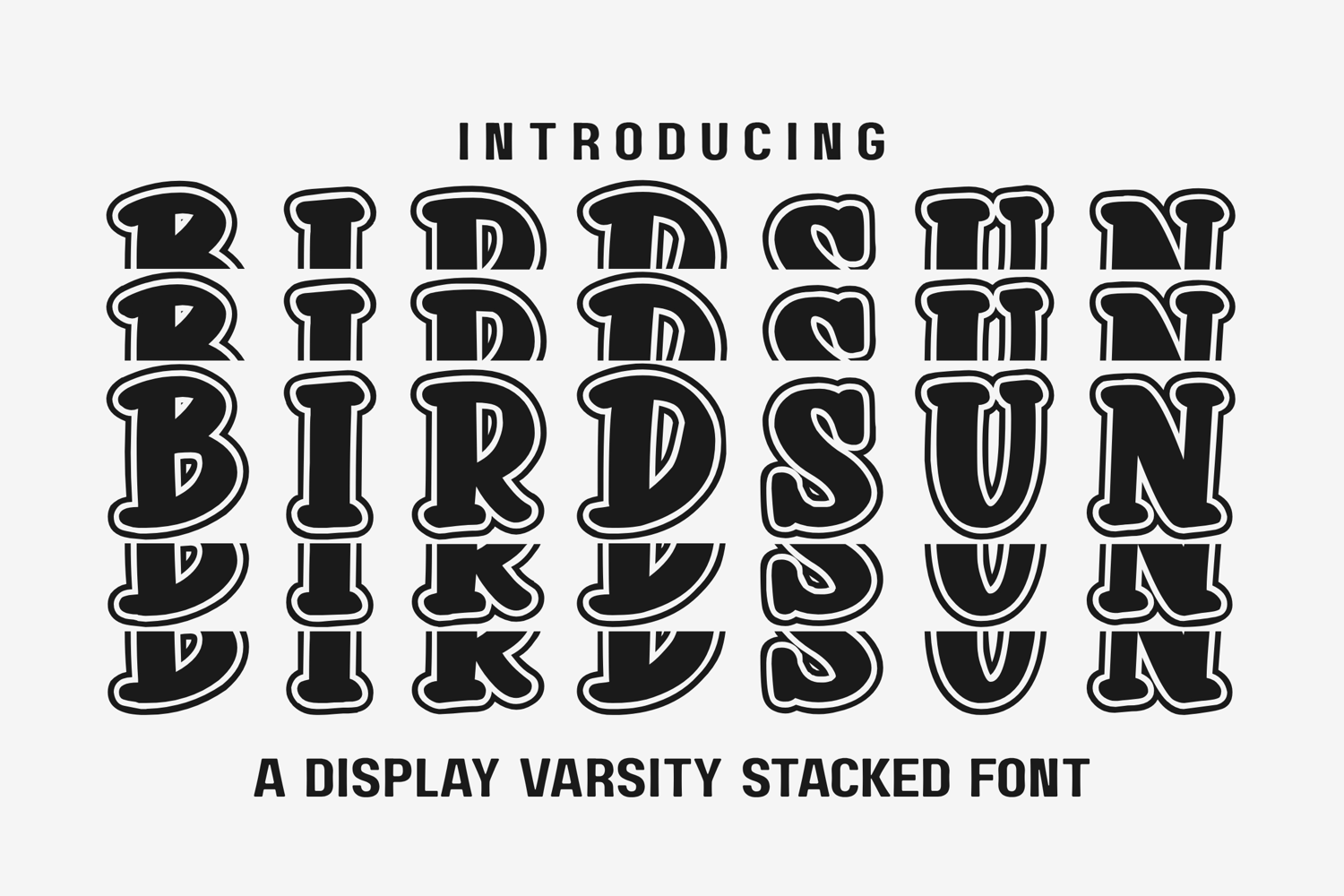
Birdsun Varsity Stacked - Bold Athletic Block Font
Birdsun Varsity Stacked
Make a bold statement with Birdsun Varsity Stacked, a powerful display font inspired by varsity jackets, collegiate sports, and retro athletic spirit. With its stacked, all-caps style and strong geometric lines, this font brings energetic, vintage school vibes to your projects.
Perfect for team shirts, yearbook titles, event posters, or school branding, Birdsun Varsity Stacked delivers the punch your typography needs.
• Birdsun Varsity Stacked Font (All Caps)
• Classic varsity block letter styling
• Clean, stackable structure for impactful layout
🏆 Perfect For:
• Sports team logos & jerseys
• Event posters & school flyers
• Athletic apparel & merchandise
• Graduation banners & yearbooks
• Retro college-style branding